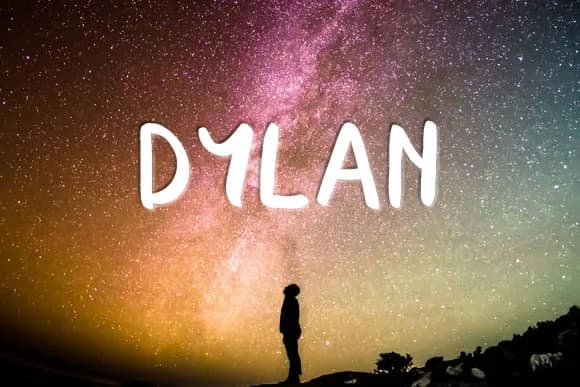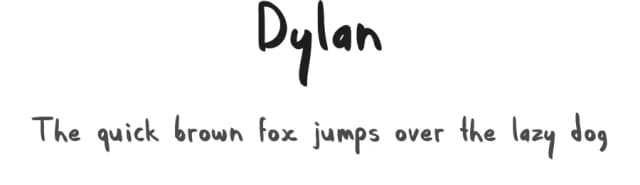
About Dylan Font
Dylan Font by Dylan Culhane is a flowing script typeface that infuses genuine hand-drawn character into any design application. This handwritten style captures the warmth of pen-on-paper letterforms while maintaining clean versatility across digital and print mediums. The typeface excels for projects demanding authentic personality, including custom wedding stationery, personalized baby announcements, and intimate event invitations. Creative entrepreneurs will find it equally suited to curated Etsy storefronts, artisanal skincare packaging, and craft business branding where genuine character sets the brand apart. The script's natural rhythm also translates beautifully to vinyl decal designs, DIY painted signage, and personalized gift labeling, applications where an authentic handwritten aesthetic makes work feel individually crafted rather than mass-produced. Dylan Font works seamlessly within major design platforms including Adobe Creative Suite and Canva, and its vector-friendly construction ensures compatibility with popular cutting machines for vinyl and fabric applications. Whether you're establishing a brand identity for a boutique business or creating personalized gifts, this script font delivers the genuine character modern audiences connect with. Get Dylan Font today on Creative Fabrica and bring handwritten warmth to your next creative work.
Dylan Font is a script font that shines as a display or heading face. Pair it with a clean sans-serif or serif font for body text β the contrast creates a clear hierarchy while the two styles stay balanced and easy to read.